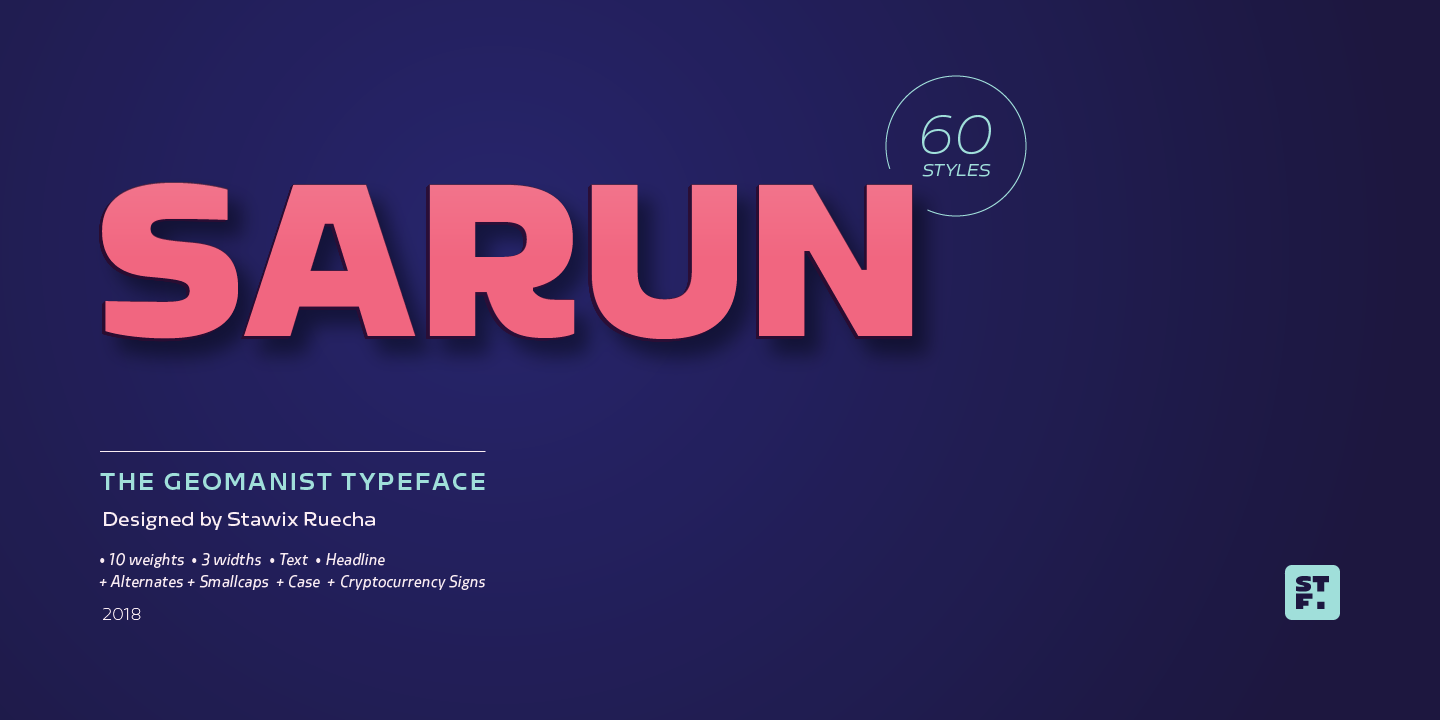
Elevate your design standards with Sarun Pro Font Free Download, a professional-grade typeface that combines modern sophistication with exceptional versatility. This premium font delivers outstanding performance across all design applications, making it an essential tool for creative professionals seeking reliable typography solutions.
Sarun Pro Font features clean, contemporary letterforms with precise geometric proportions and optimal readability characteristics. The font excels in corporate branding, professional presentations, website design, editorial layouts, marketing materials, and business communications requiring polished visual appeal. Its balanced design ensures excellent legibility while maintaining distinctive character that sets brands apart.
This comprehensive typeface performs flawlessly across digital and print mediums, maintaining consistency and clarity at every size. Whether you're developing brand identities, creating annual reports, designing user interfaces, or crafting advertising campaigns, Sarun Pro Font provides the professional foundation your projects demand for maximum impact and credibility.
Design professionals worldwide trust the Sarun Pro Font Free Download for projects requiring sophisticated typography and commercial reliability. The font works exceptionally well for technology companies, financial institutions, consulting firms, healthcare organizations, and any business seeking to establish professional credibility through thoughtful design choices.
The complete Sarun Pro Font family includes extensive weights, styles, and language support, providing designers with comprehensive tools for creating cohesive brand systems. Each character demonstrates meticulous attention to detail, ensuring consistent quality and professional appearance across all platforms and applications.
Perfect for graphic designers, brand strategists, and marketing professionals, this font combines contemporary aesthetics with practical functionality. Sarun Pro Font supports international character sets, making it ideal for global campaigns and multilingual content creation.